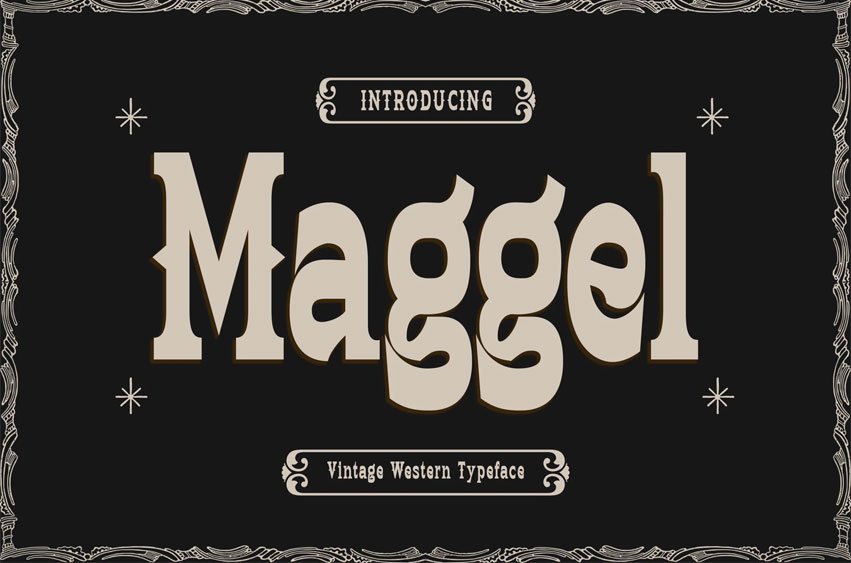
Maggel Font is a bold and character-filled vintage Western display font that brings a rugged, classic touch to your creative work. With its sharp slab serifs and heavy, authoritative structure, Maggel captures the spirit of the old frontier while maintaining a clean, modern edge—perfect for a strong, masculine, and eye-catching aesthetic, and heritage-inspired graphics.
Designed to be both powerful and versatile, Maggel comes with a full set of uppercase and lowercase letters, numerals, and punctuation. Whether you’re working on a custom garage logo, motorcycle culture branding, or an authentic vintage poster, this font adapts beautifully to both print and digital projects, lending a timeless quality to your visual storytelling.
Add a sense of heritage and grit to your design with Maggel—a font that blends the legendary structure of Western typography with the soul of modern craftsmanship.
- Rugged vintage Western character
- Uppercase & lowercase letters
- Numbers (0–9)
- Comprehensive punctuation & symbols